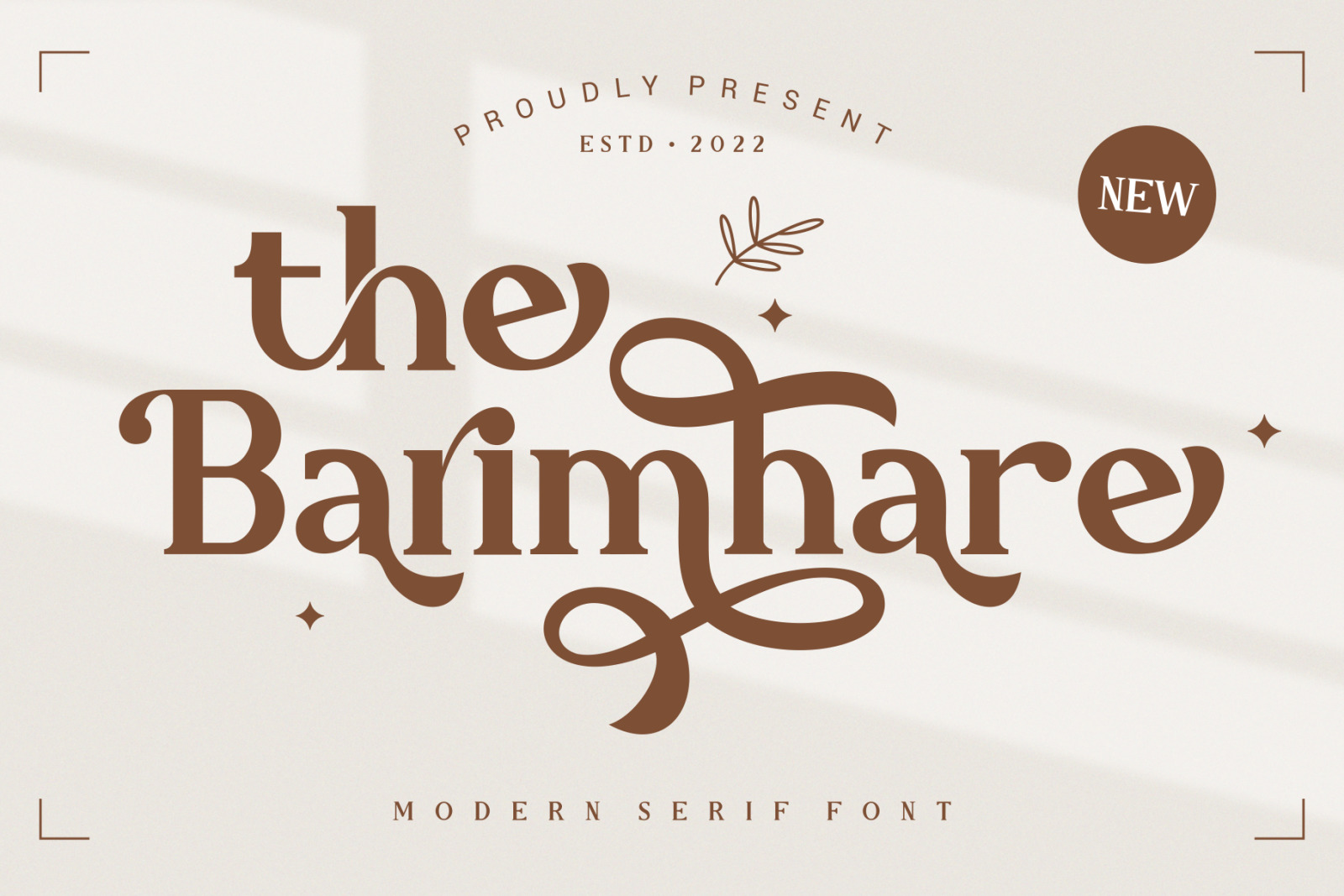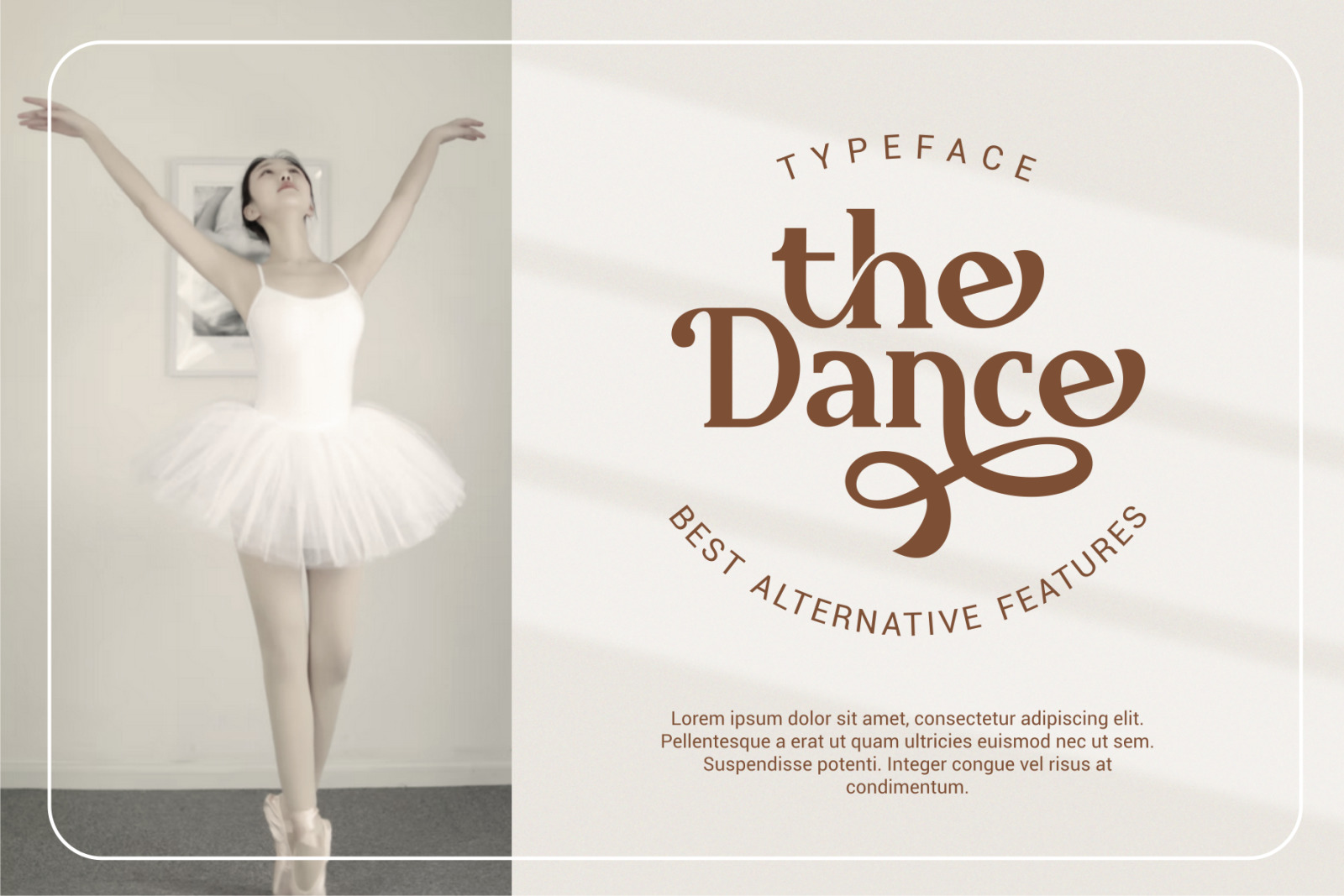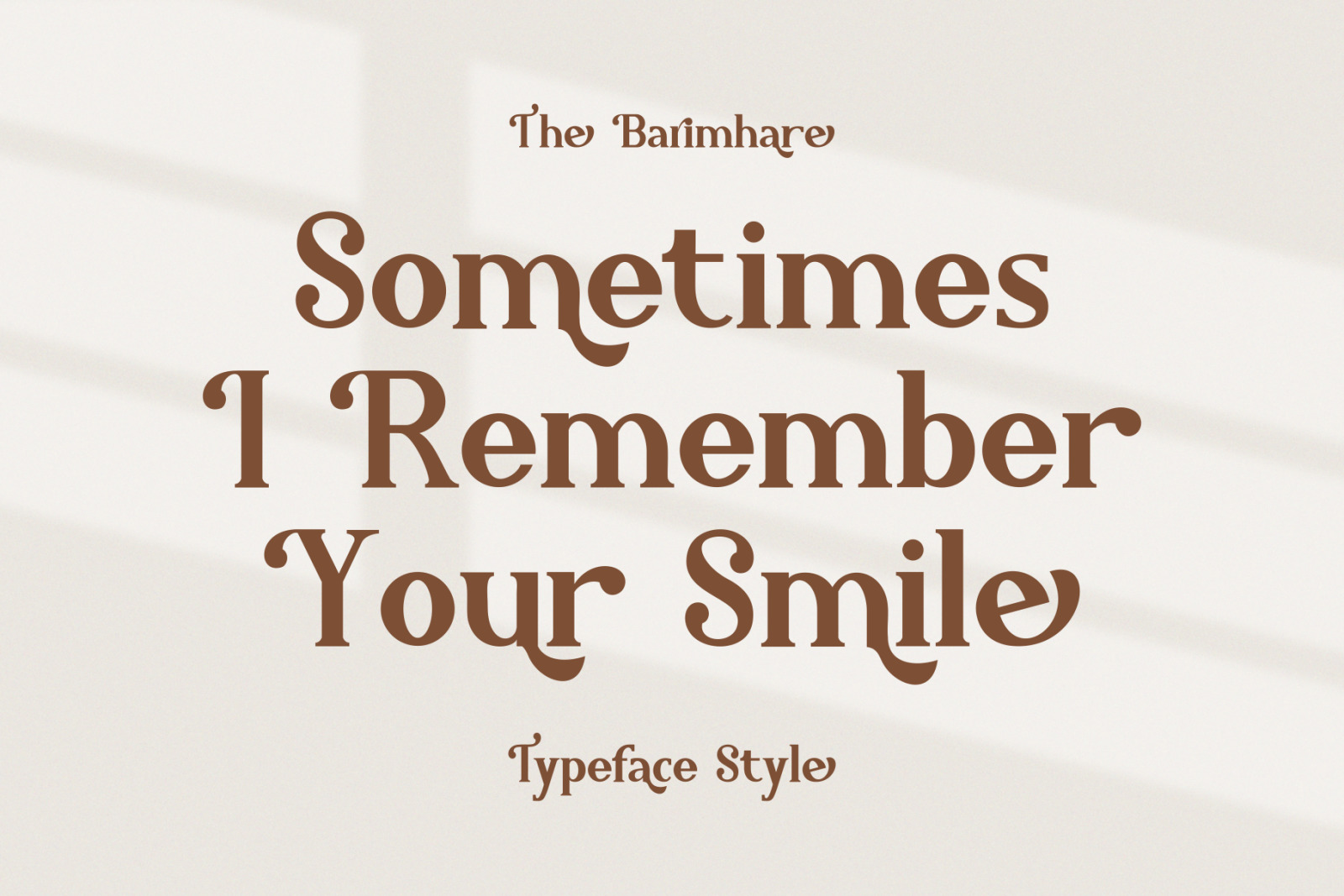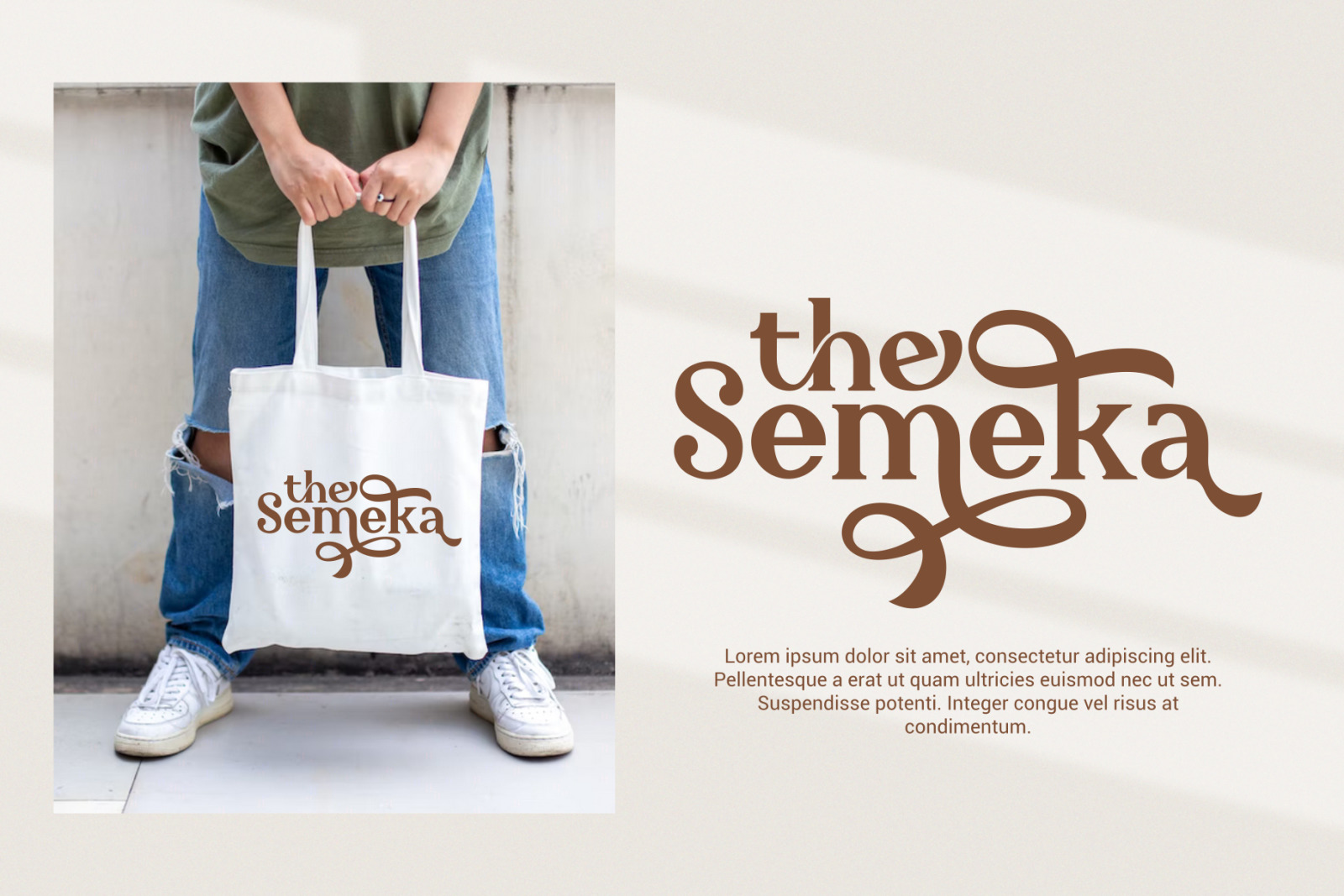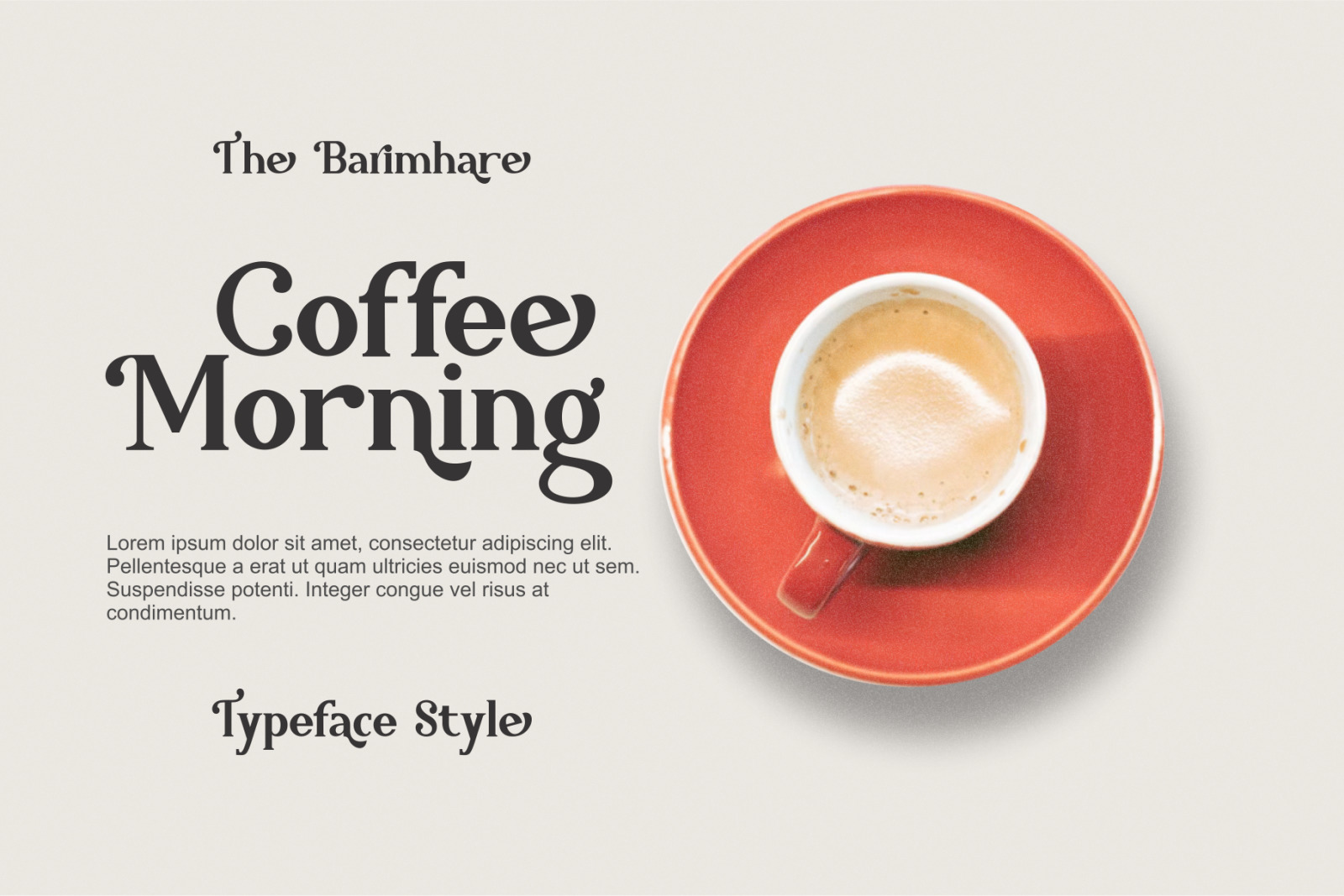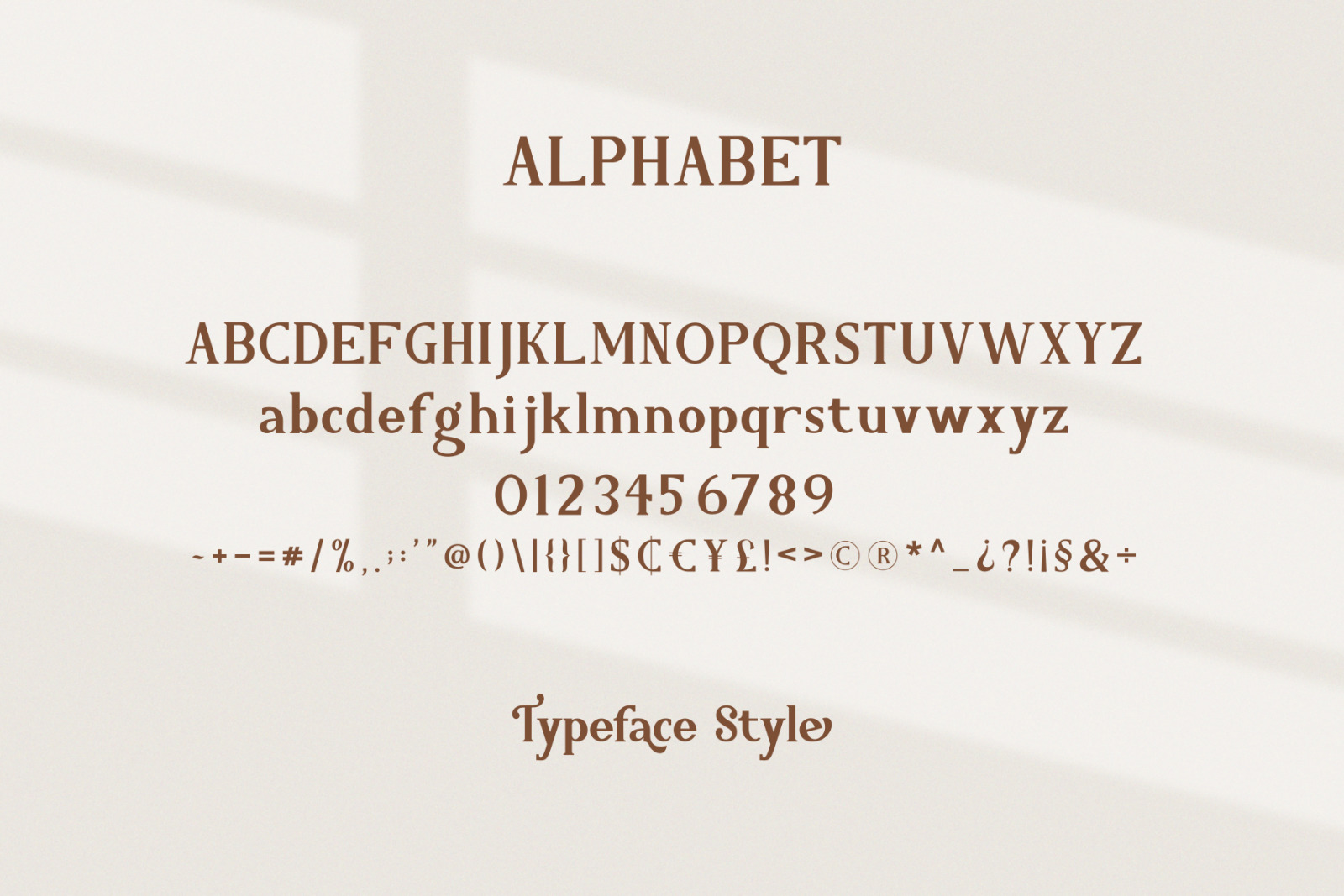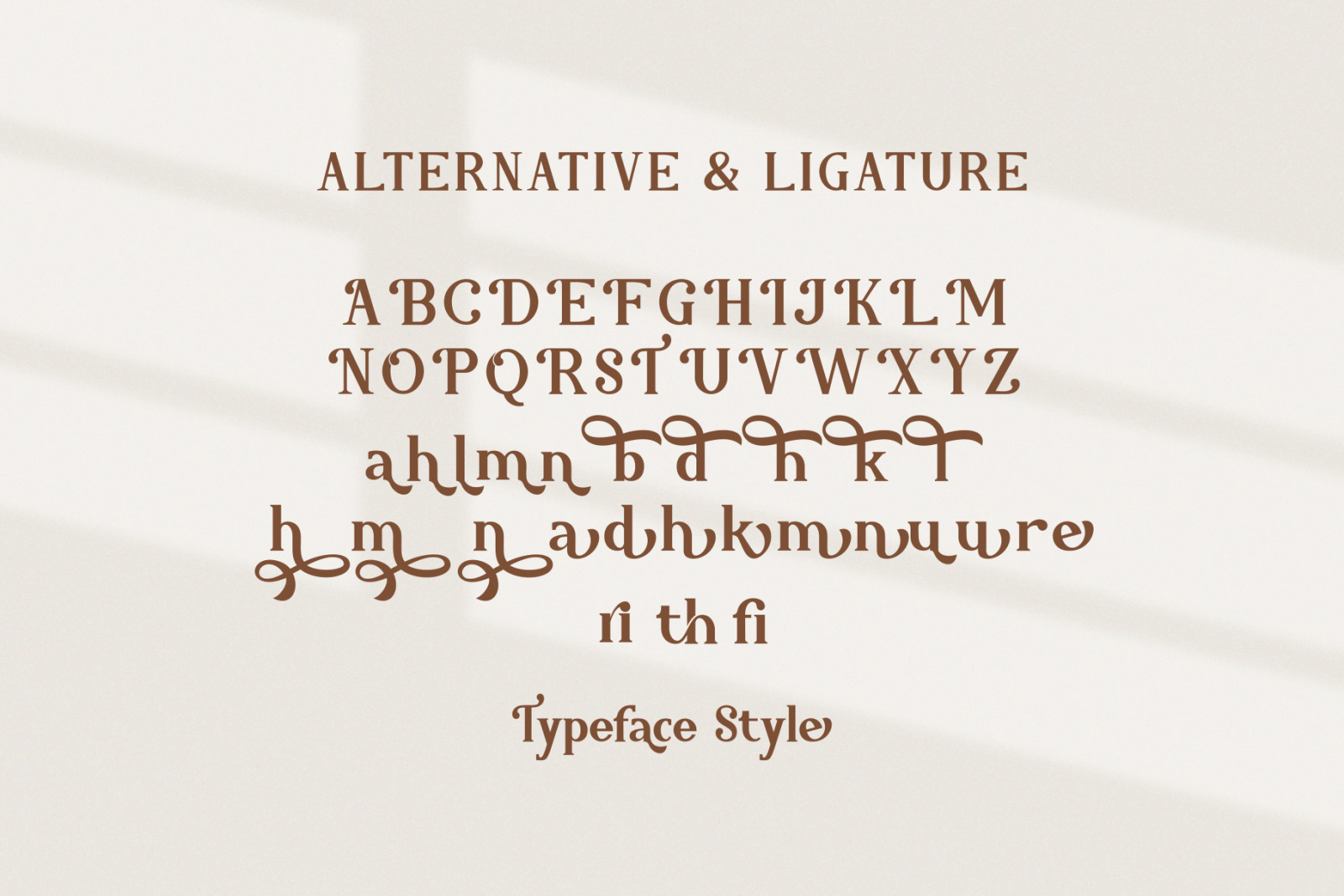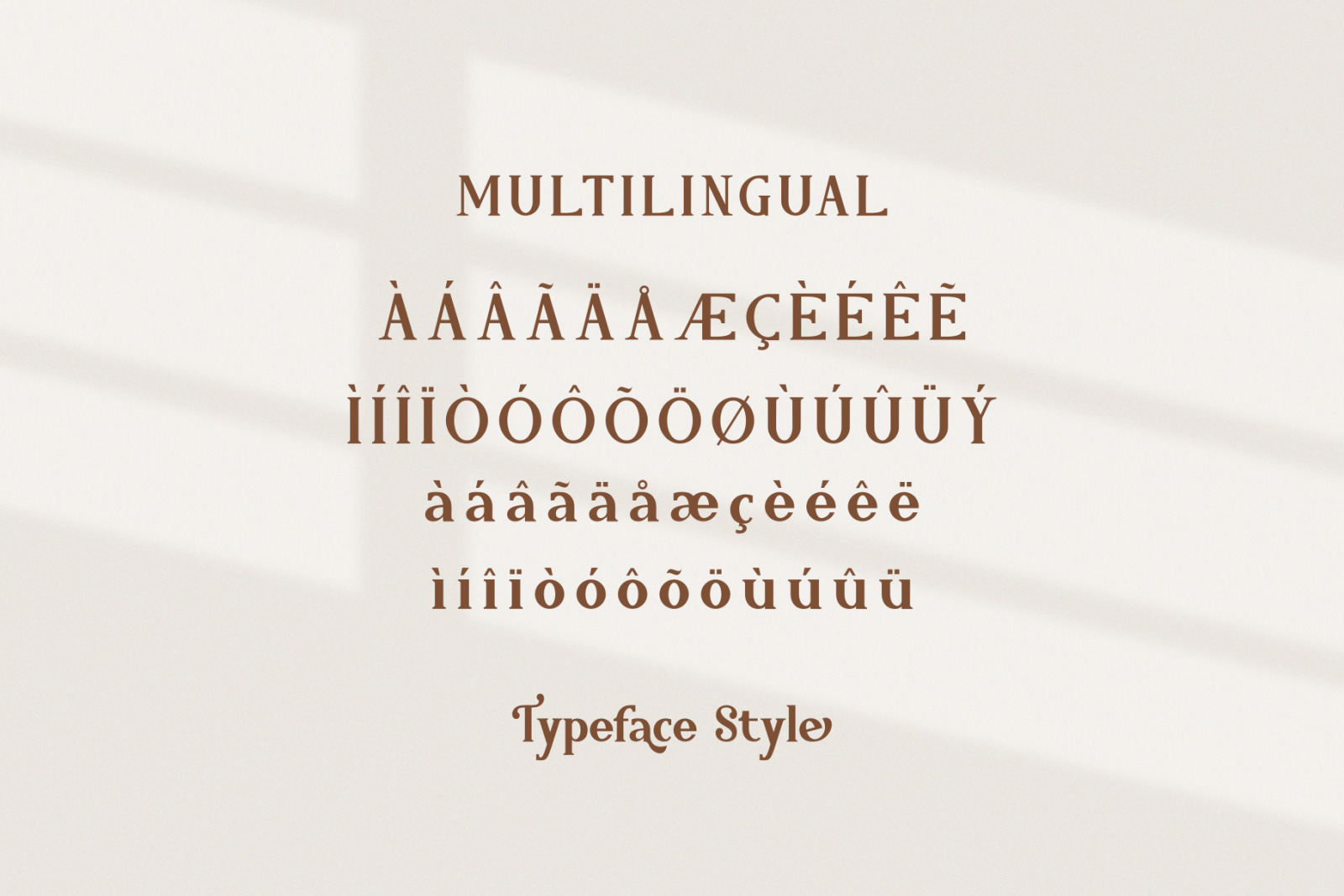
The Barimhare Font
Presenting our new product **The Barimhare Font** - Modern Font
**The Barimhare Font** - Modern Font is a bold and authentic display font. This font is perfect for any branding project such as logos, t-shirt printing, creative products, and more. extraordinary in a variety of contexts.
**availlable**
* Uppercase
* Lowercase